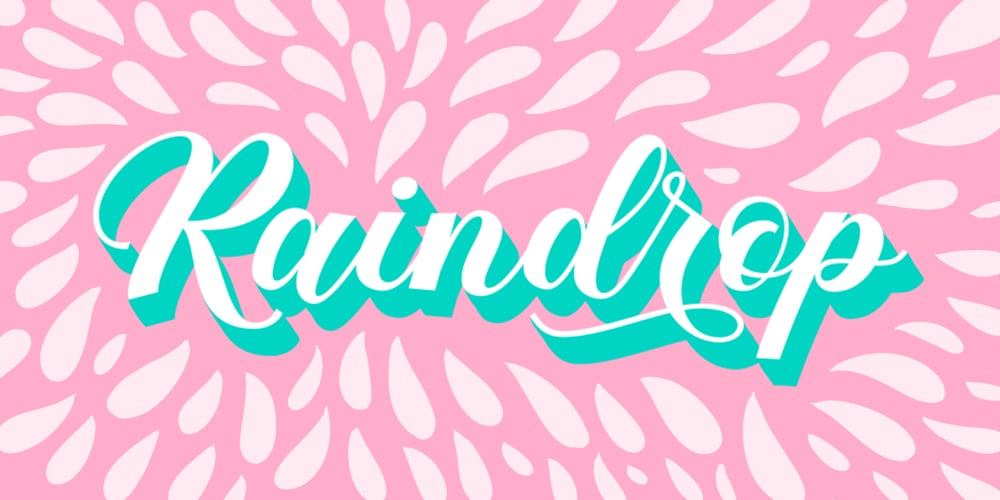
Raindrop Font Family was designed by Dathan Boardman, Molly Jacques and published by Great Lakes Lettering. Raindrop contains 3 styles and family package options. Raindrop is a fun and flirty typeface that pulls inspiration from editorial illustration. Each letter was carefully crafted to feel hand made and give the appearance of custom lettering. Through a variety of stylistic alternates and pairings, Raindrop is the perfect typeface choice for projects that aim for a one-of-a-kind feel when hiring a lettering artist isn’t an option. Raindrop is made up of three separate styles being serif, sans, and script. The ability to pair styles together will add texture and personality to your design, leaving the viewer wondering: lettering or type?